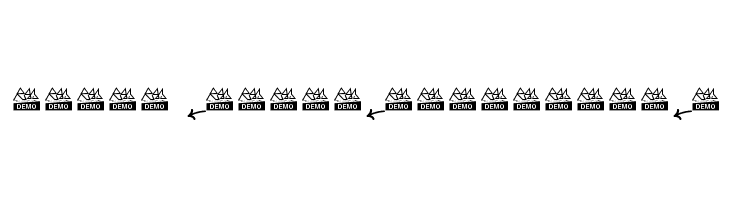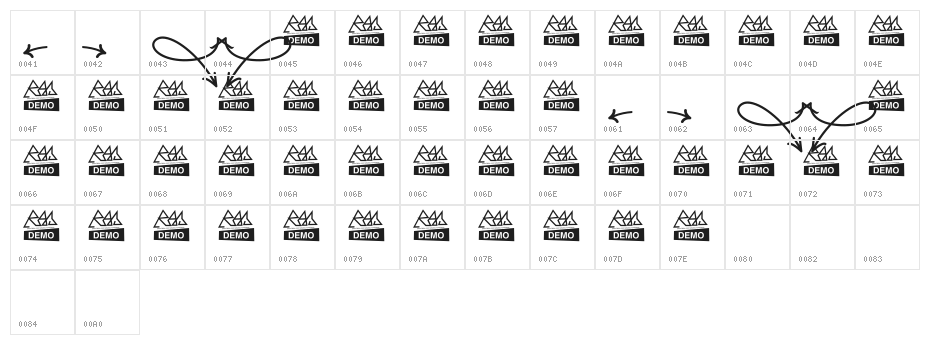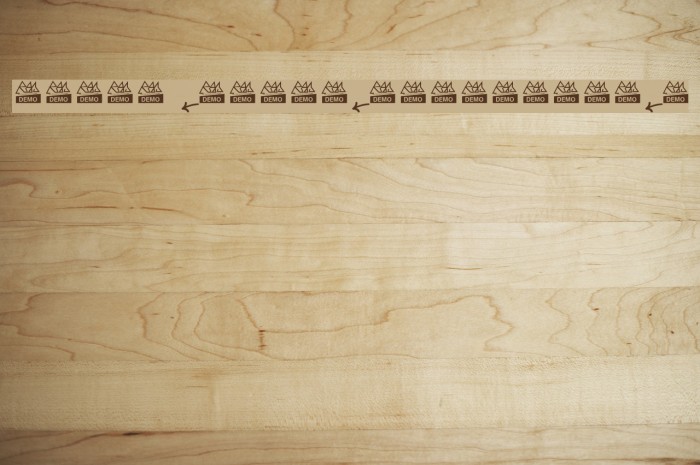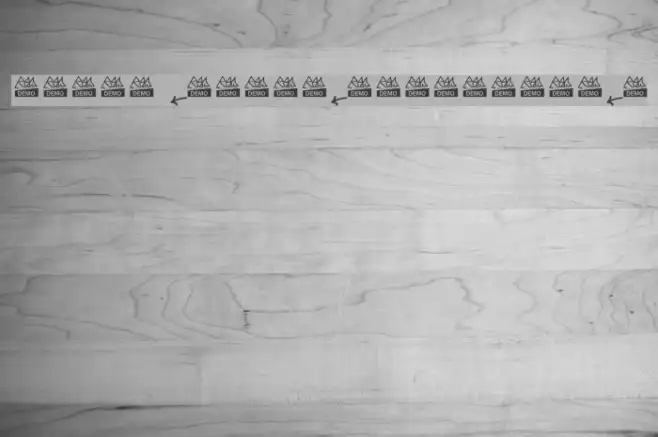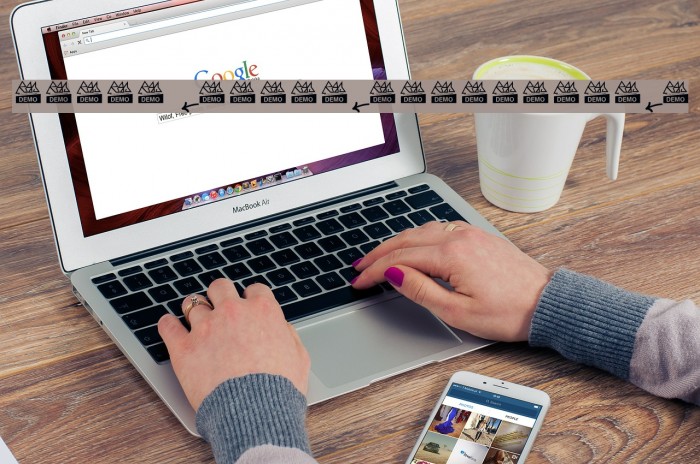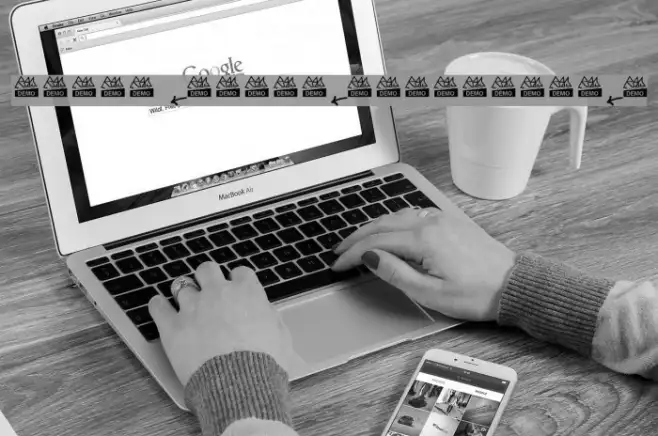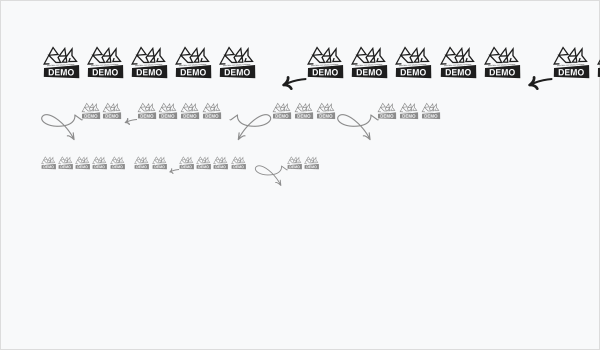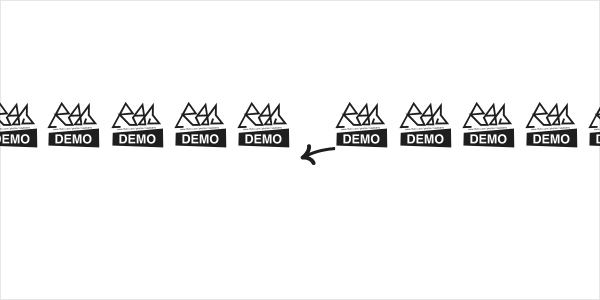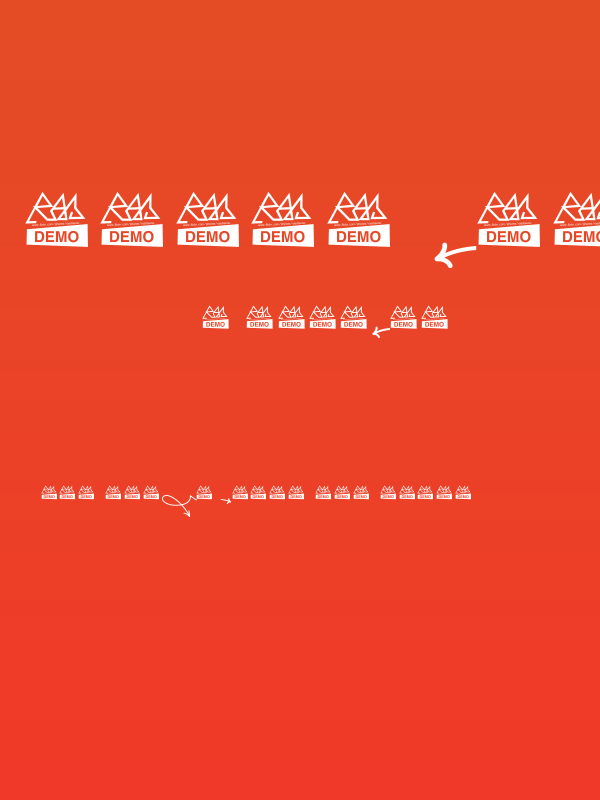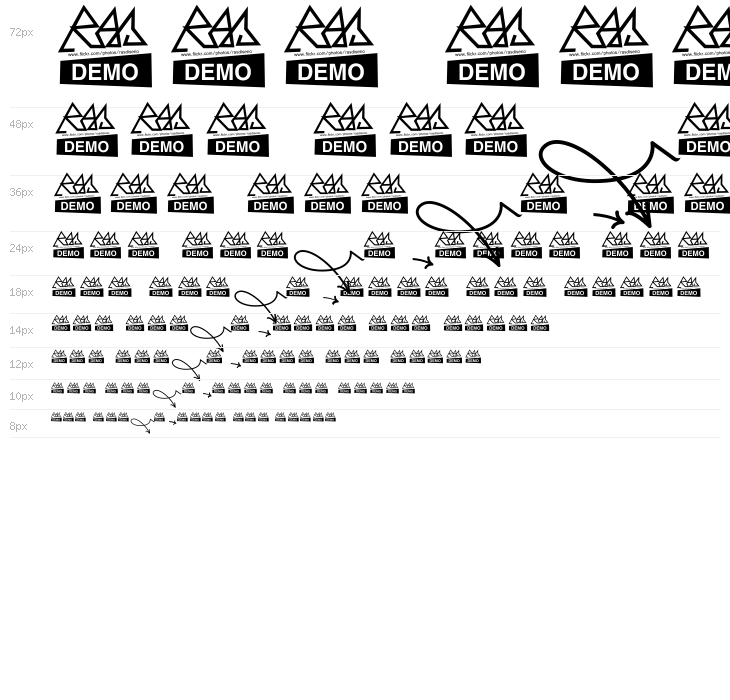
mOskU AlternativeRegular Font
mOskU AlternativeRegular Description
This image does not display a valid font. Instead, it contains repeated graphical elements and the word 'DEMO' beneath each element. The design appears decorative, with no discernible alphabetic or numeric characters present. The visual elements are consistent in style, featuring a crown-like motif, but they do not form a complete typeface suitable for text representation.